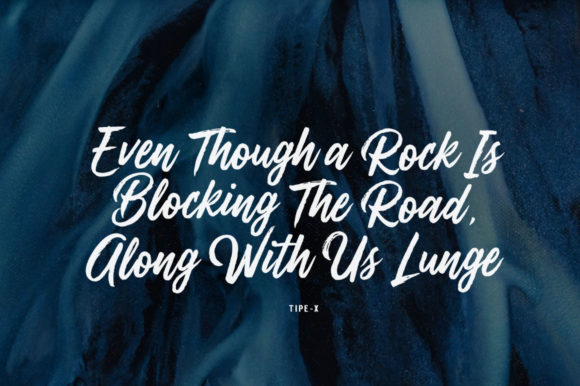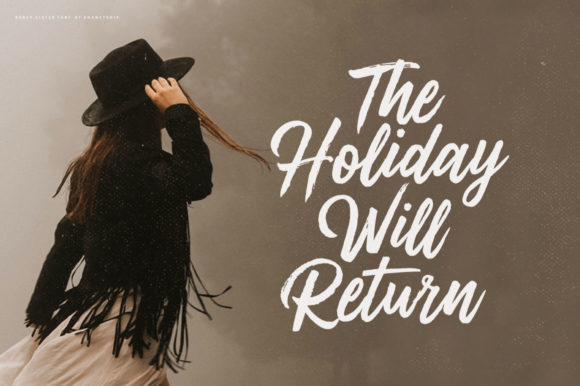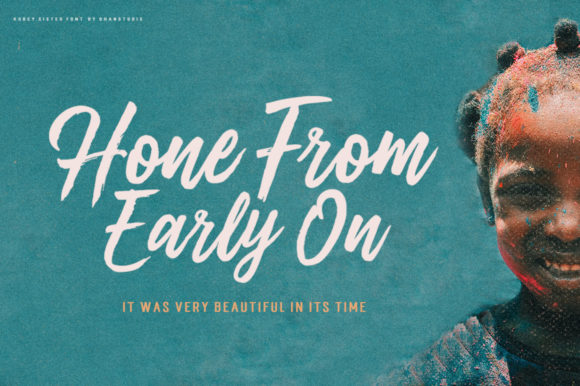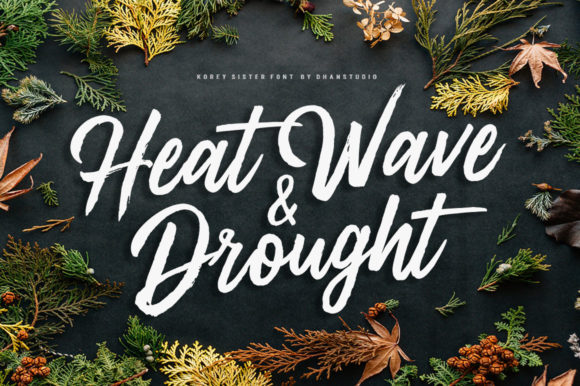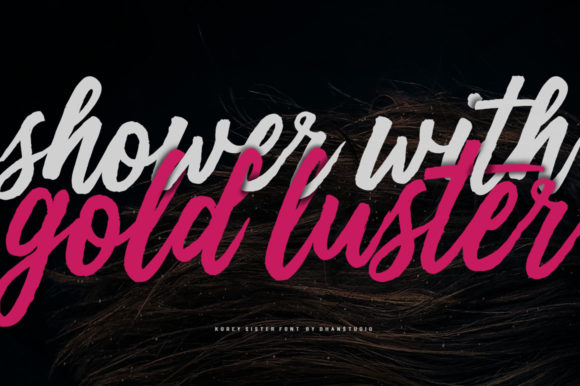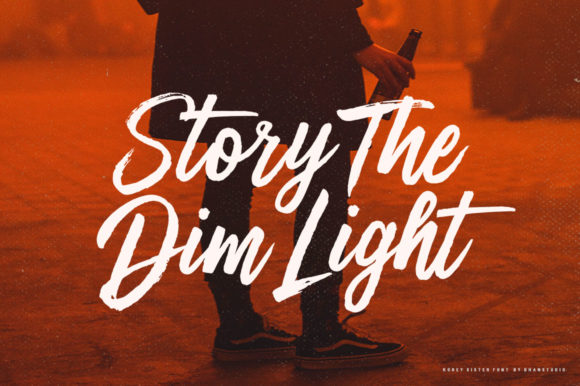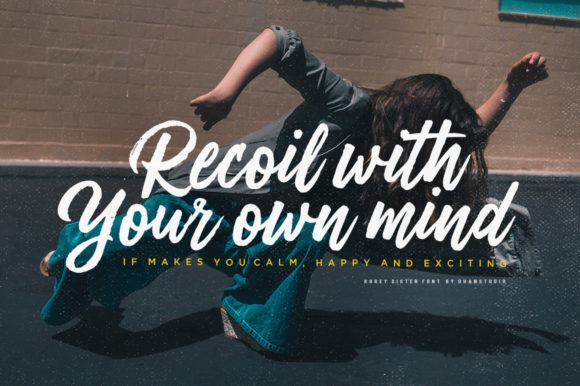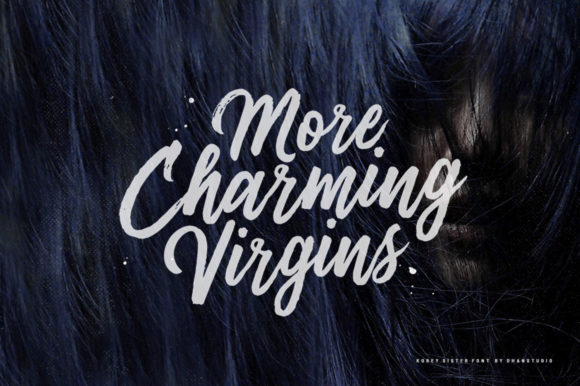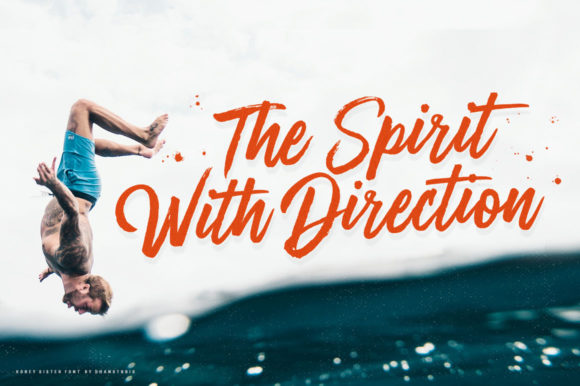
HomeScript FontsKorey Sister Font Script Fonts Korey Sister Font FacebookXPinterestWhatsApp Korey Sister Font Poster 2 Korey Sister Font Poster 3 Korey Sister Font Poster 4 Korey Sister Font Poster 5 Korey Sister Font Poster 6 Korey Sister Font Poster 7 Korey Sister Font Poster 8 Korey Sister Font Poster 9 Korey Sister Font Poster 10 About Korey Sister Font Korey Sister combines great legibility and elegance into one truly original script! DOWNLOAD NOW People also explored Blank Orange Duo Omletta Font Magnify Font Font Woodyssey Font Bisqootte Font Sunglow Font Cyrillic Latino She Hungry Font The Queen Font 623 0 TagsKorey Sister Font Previous articlePretty Lady FontNext articleJullyana Font LEAVE A REPLY Cancel reply Comment: Please enter your comment! Name:* Please enter your name here Email:* You have entered an incorrect email address! Please enter your email address here Website: Save my name, email, and website in this browser for the next time I comment. Personal Use Free Eaglese Personal Use Free Read more about this font Little Things Duo Personal Use Free Read more about this font Short Message Personal Use Free Read more about this font Mini Story Personal Use Free Read more about this font BLOG Modern Sans-Serif Fonts That Brands Love in 2025 In 2025, modern sans-serif fonts remain a top choice for brands looking to project clarity, professionalism, and... The 10 Best Handwriting Fonts to Add Personality to Your Designs Elegant Wedding Invitation Fonts – Handwritten & Script Fonts Top 10 Handwritten Fonts That Elevate Your Designs